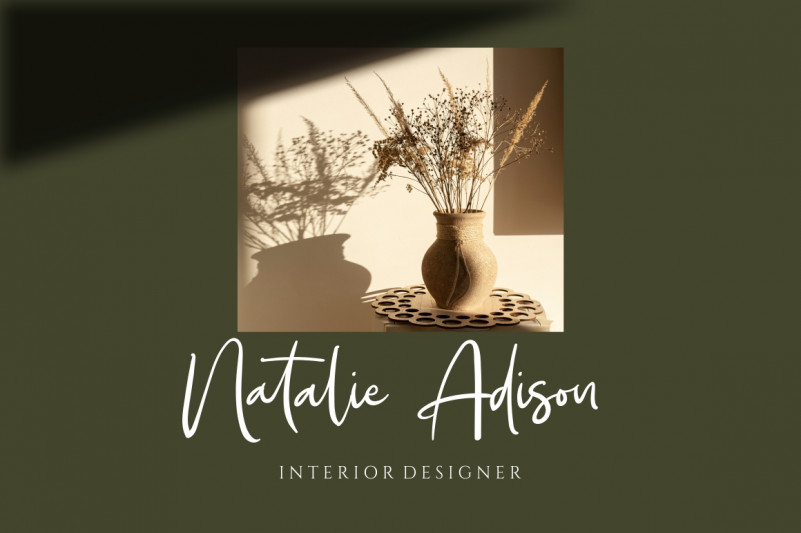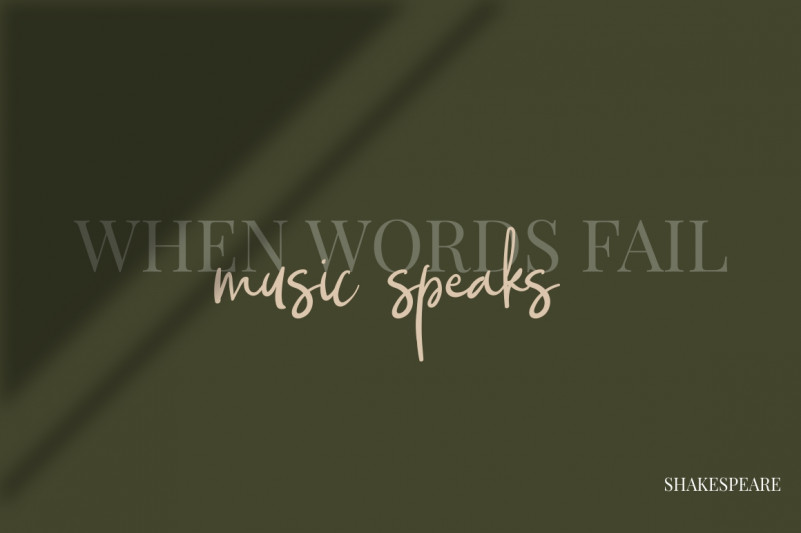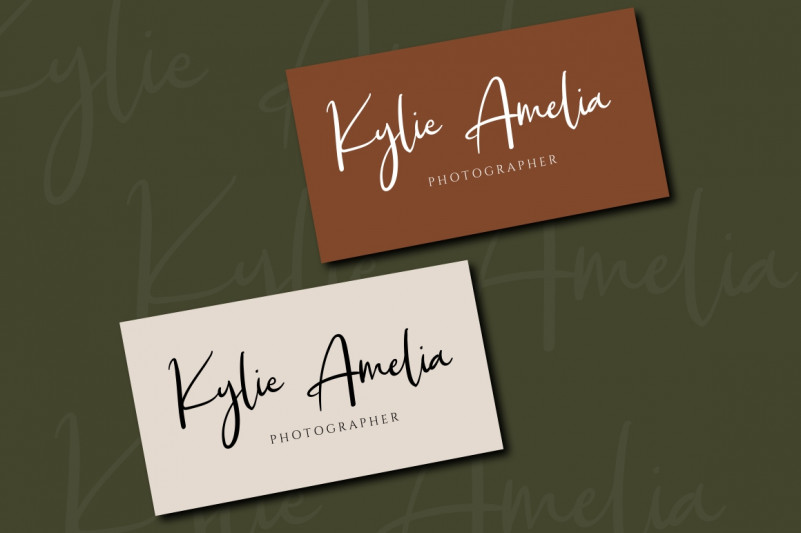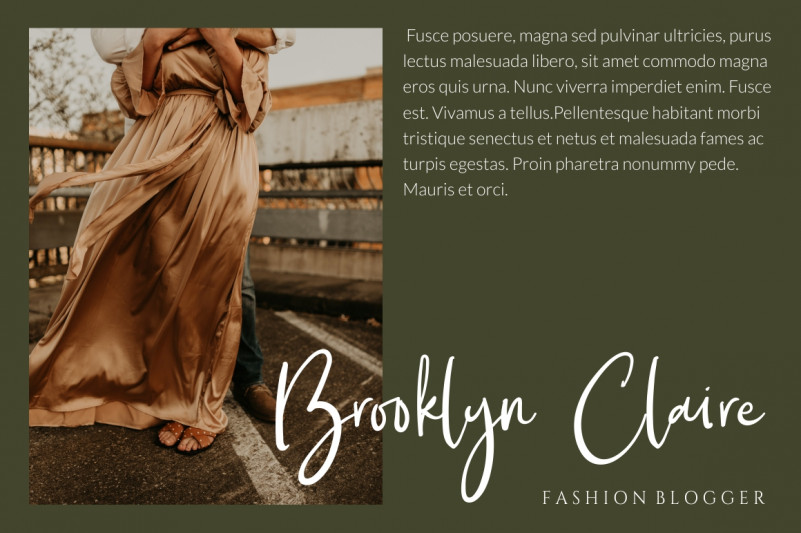
Jade Rosse Font
Jade Rosse Handwritten Font
This is a fashionable and dainty script font. This font is PUA encoded which means you can access all of the glyphs and swashes with ease! Fall in love with its incredibly versatile style and use it to create spectacular designs!